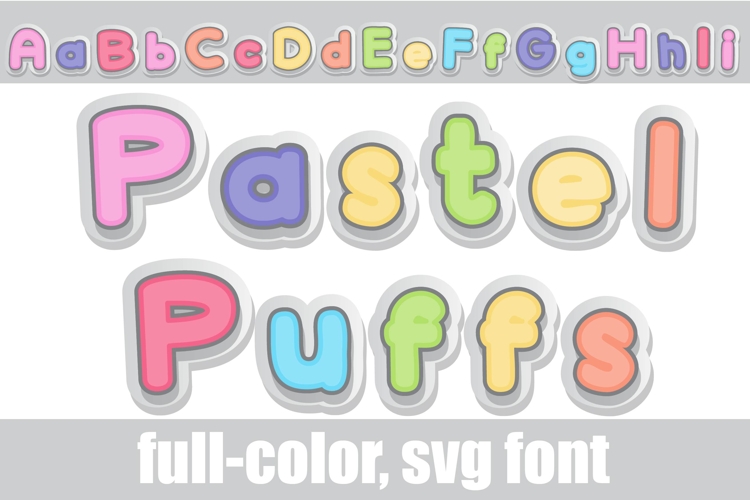
Pastel Puffs Color Font
This full-color, chunky, layered sans serif is in a pastel color palette. There is an alt case of additional colors of each letter that you can access through your system's character map.